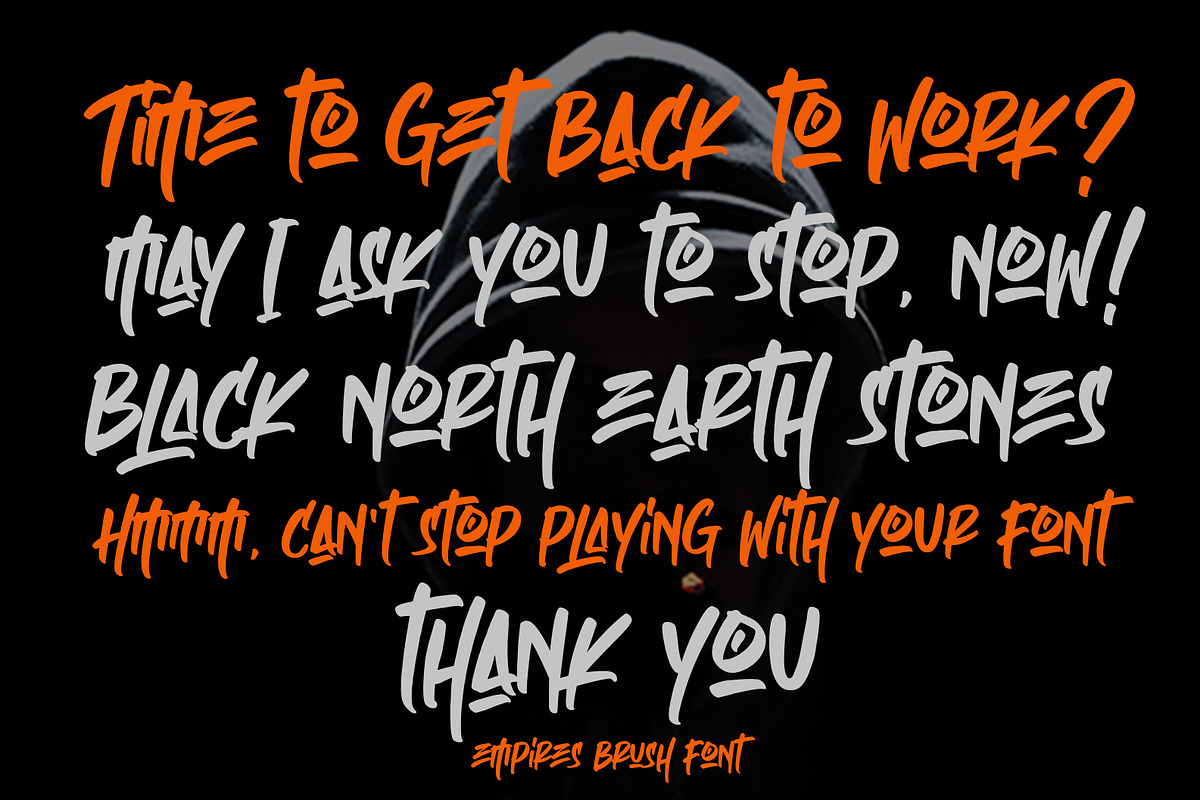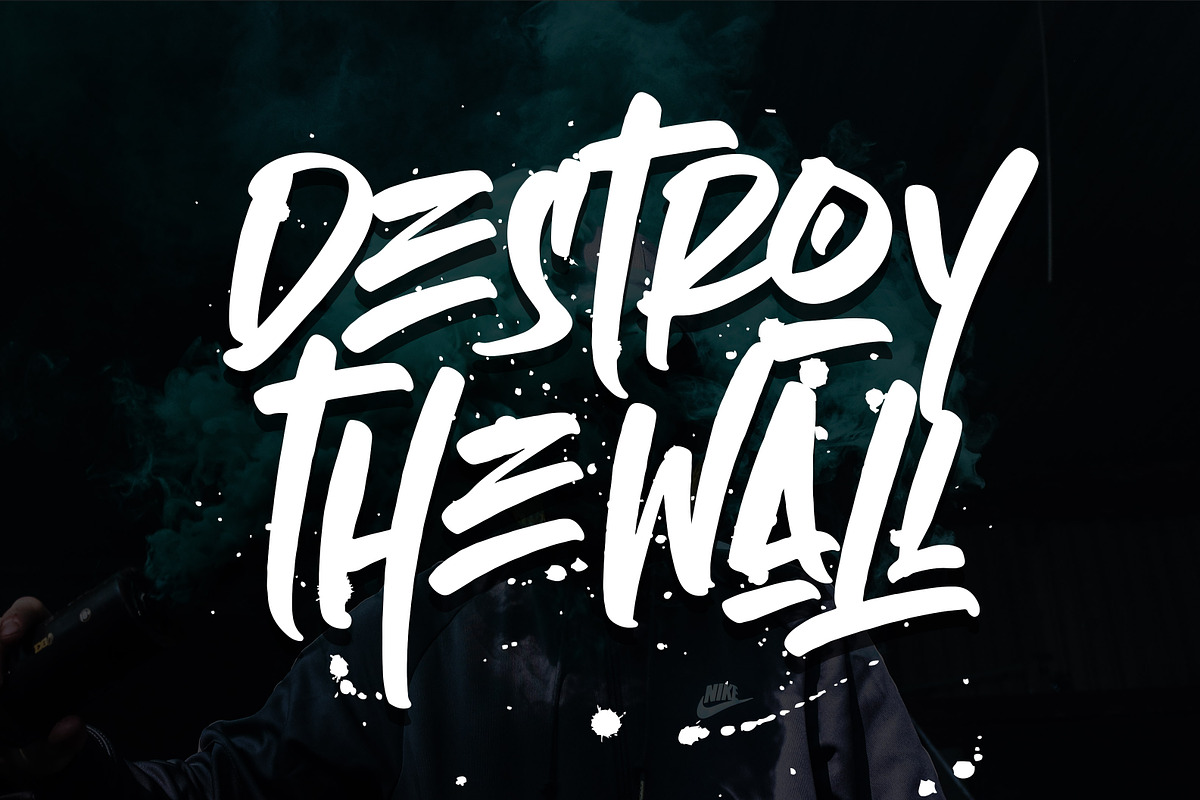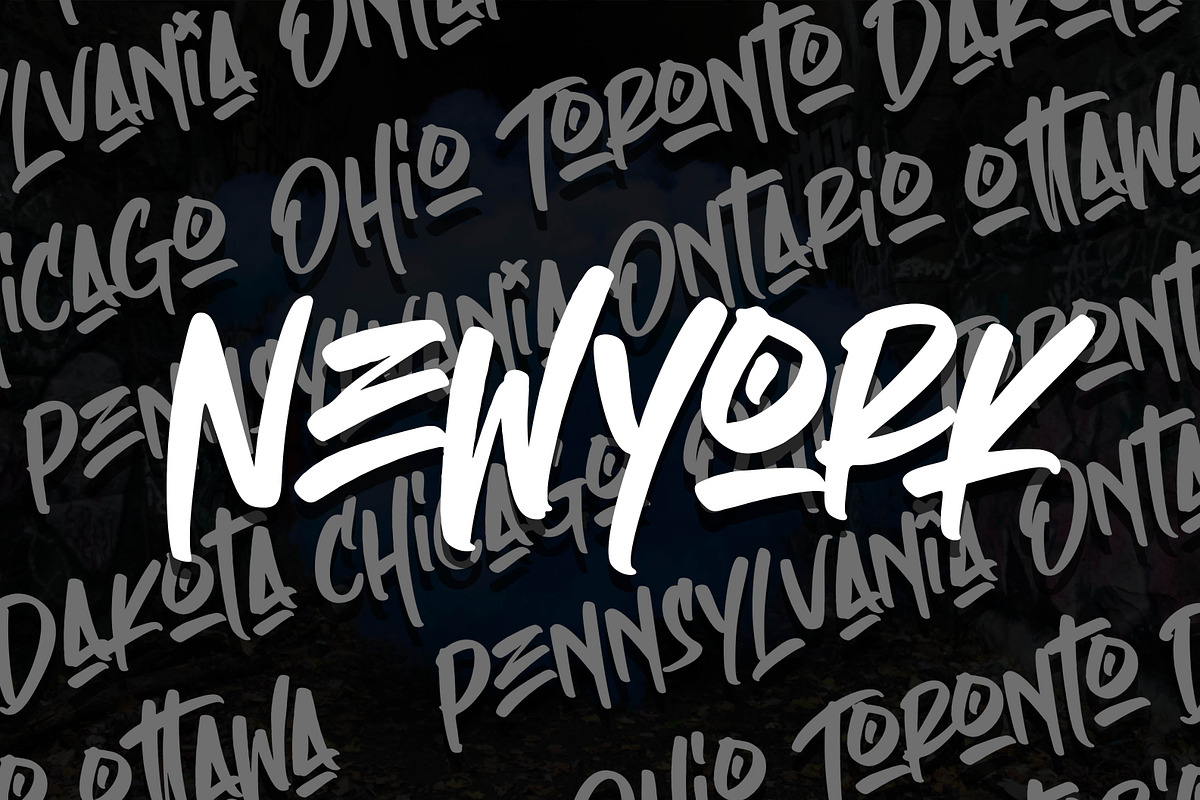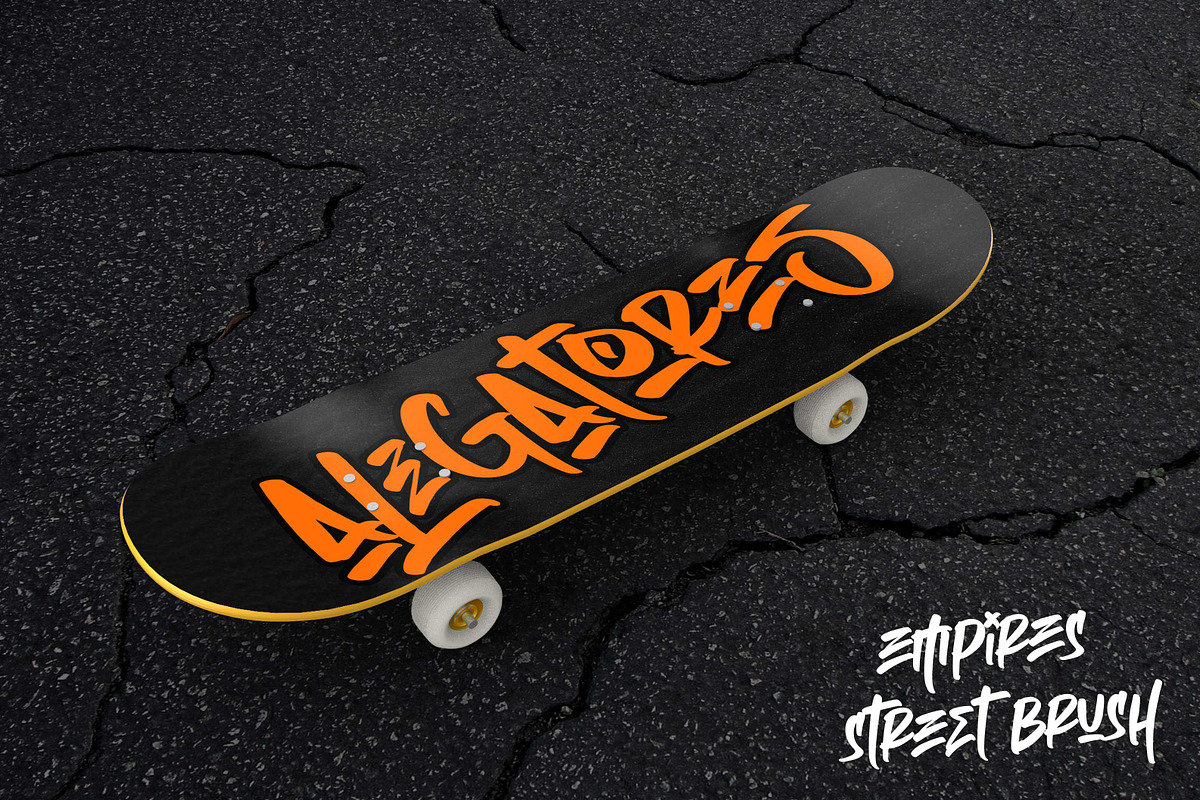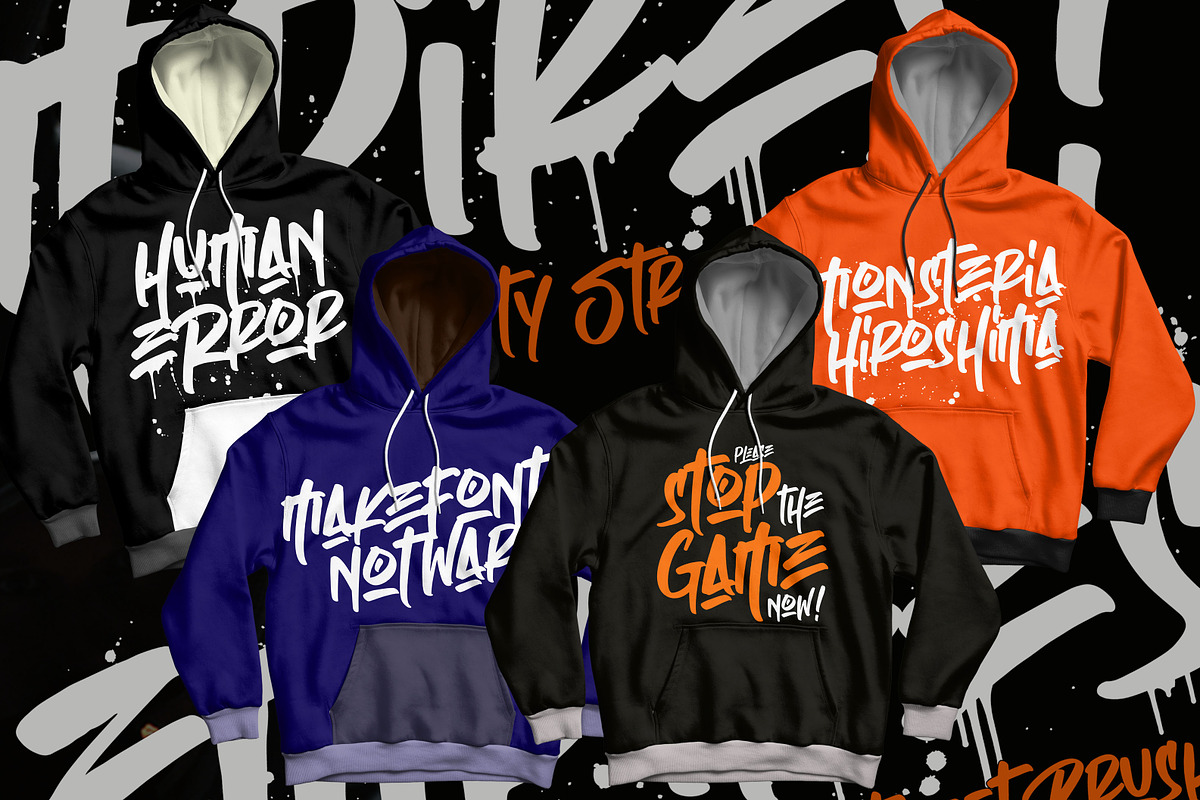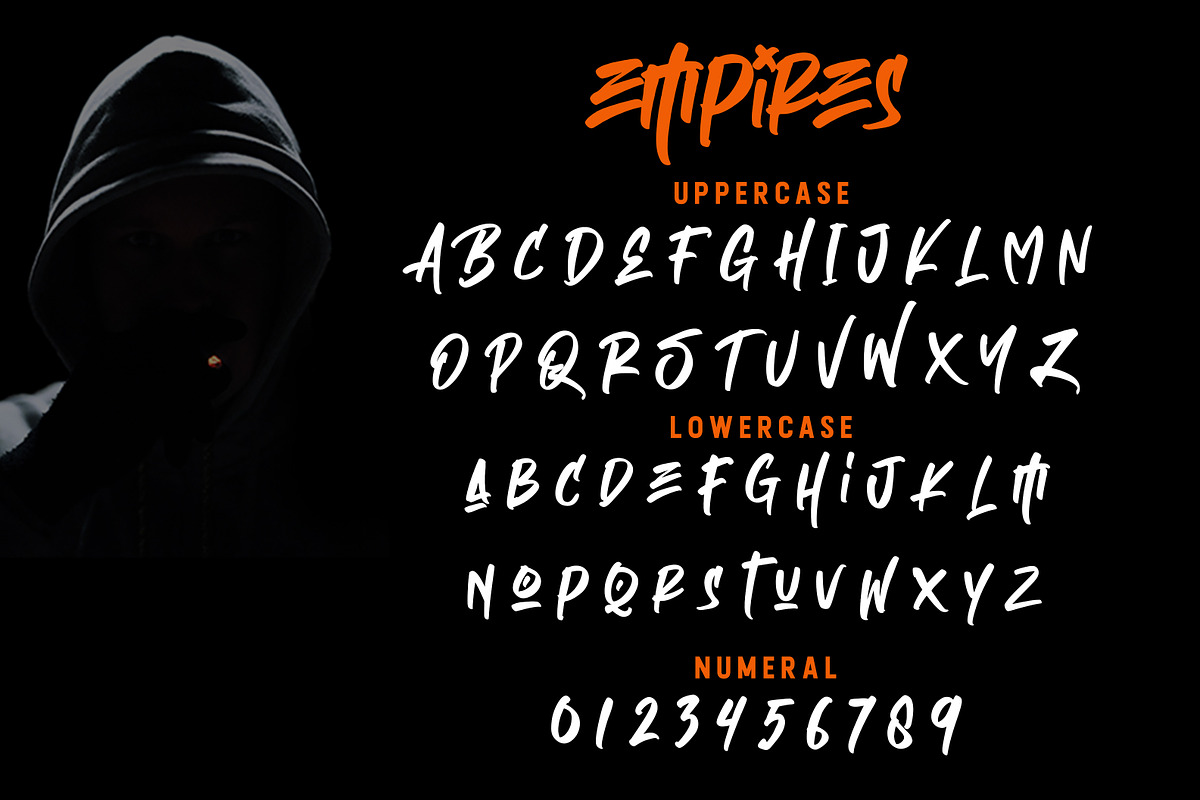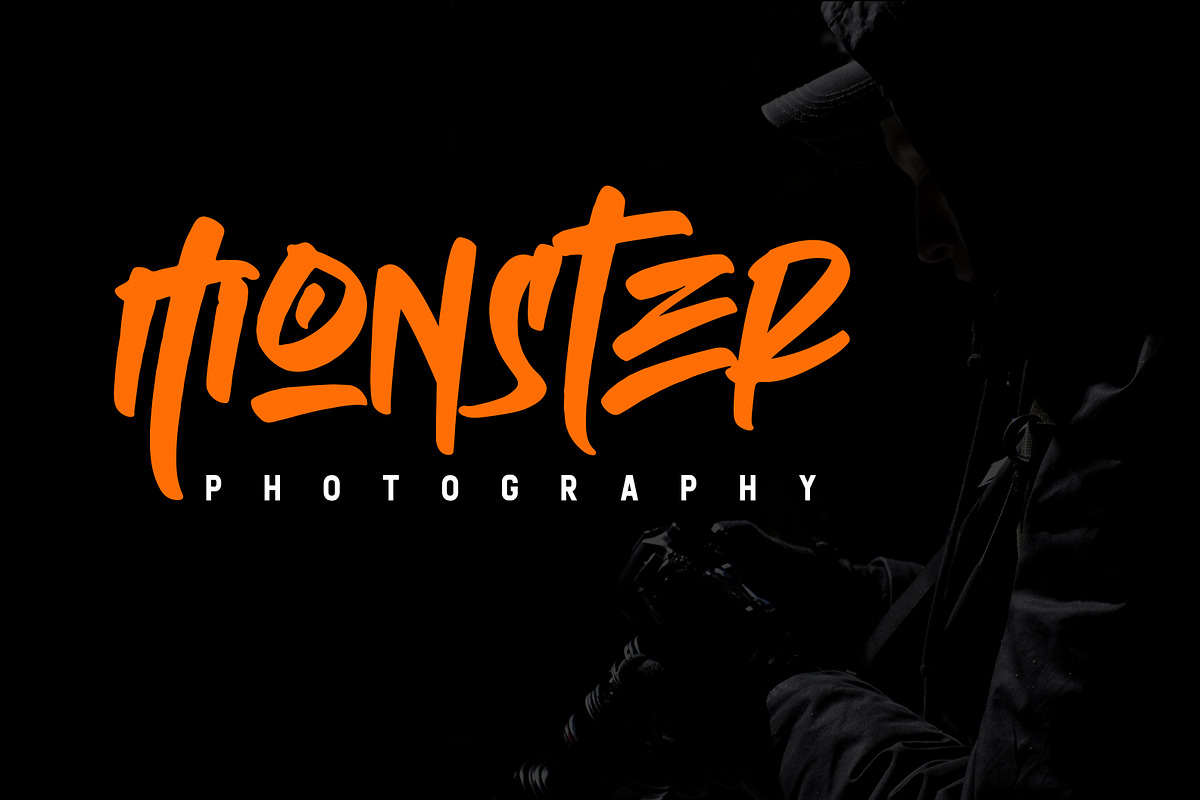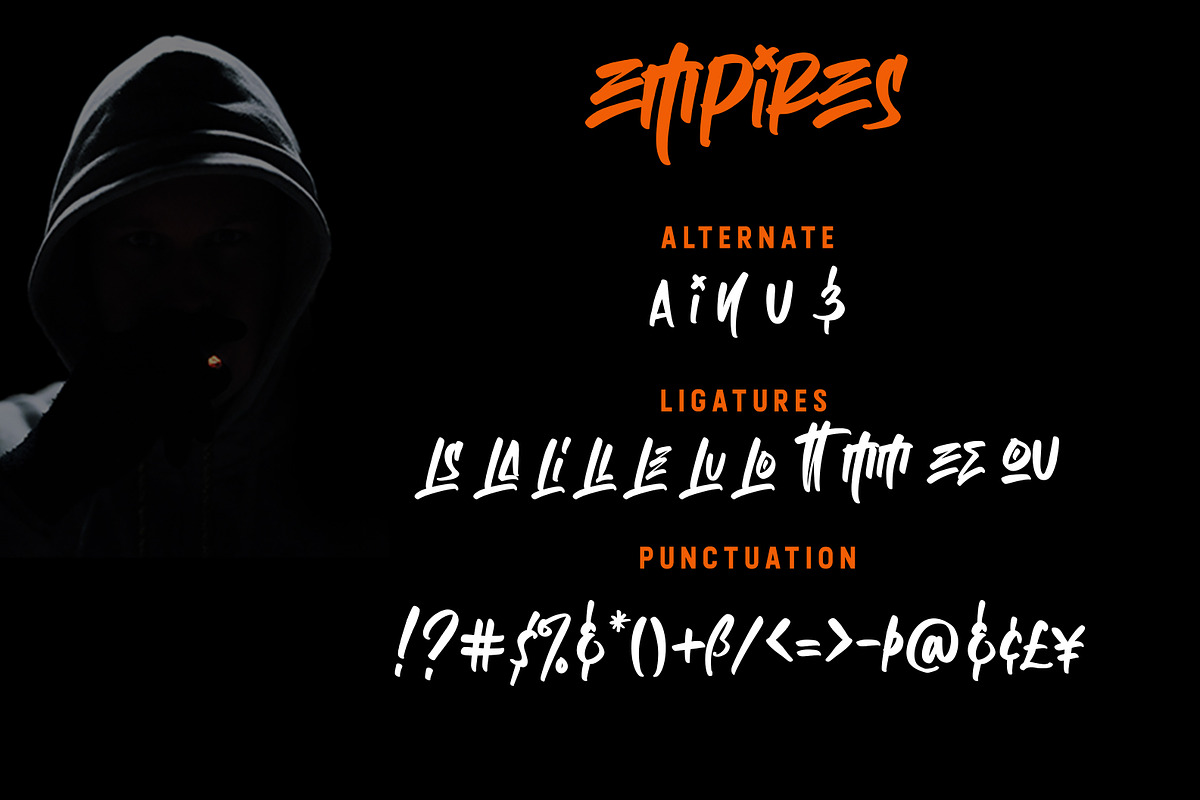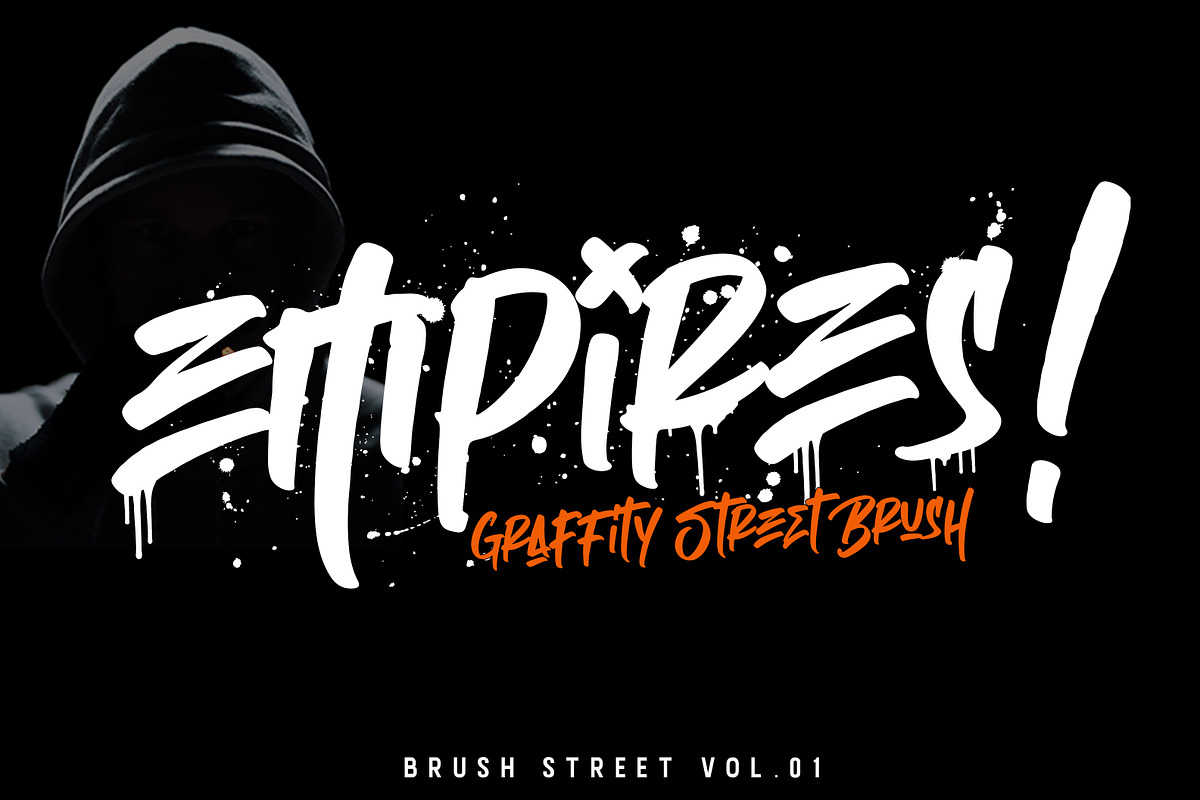
Sale! Empires-Graffitty Street Brush
INTRODUCING Empires Street Brush Font is a supercharged, street-wise brush font bursting with energy, Empires is ideal for logos, apparel,T-shirt,Hoodie, quotes, product packaging, or anything which needs a typographic turbo-boost.
What's Included: Empires Regular - The standard version of the font. Perfect for titles and logos. Empires X Swash - Need a cool drip on your text or a splash of paint? This font set has you covered. Type any letter a-z using this font, and you'll get a unique swash to accompany the font